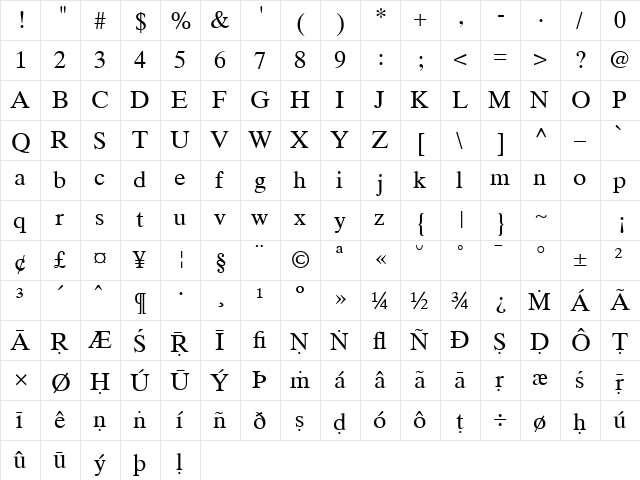
Tamal Normal
Design Context for Tamal Typeface
Tamal is a composed and adaptable typeface that performs quietly and consistently across a wide range of design contexts.
Pro Tip: Pair Tamal with a font of contrasting weight or personality to build a more expressive typographic hierarchy.